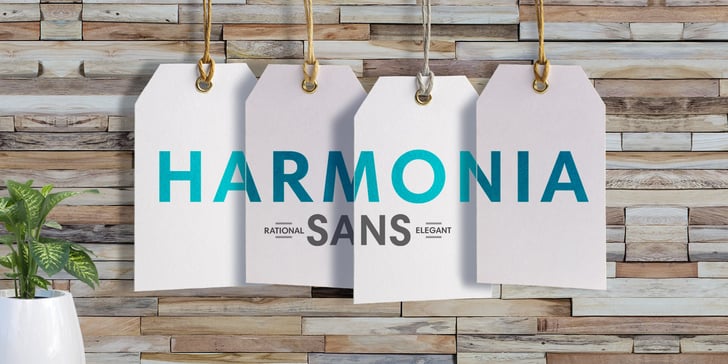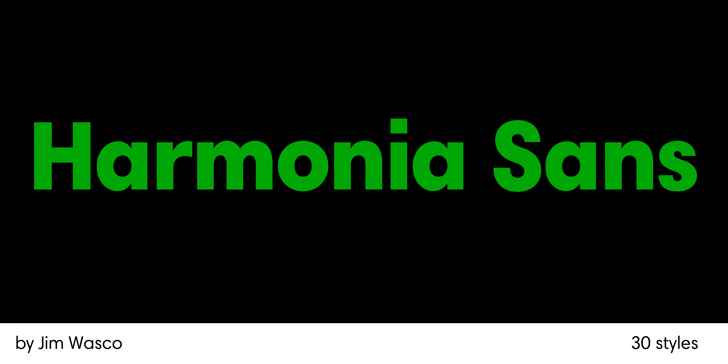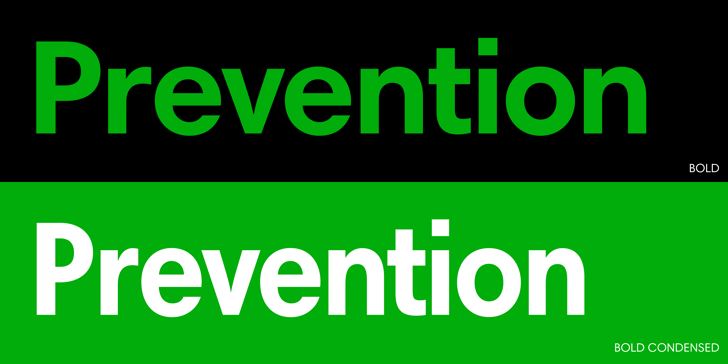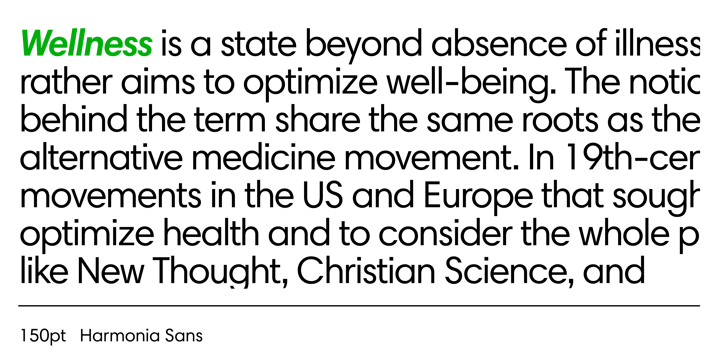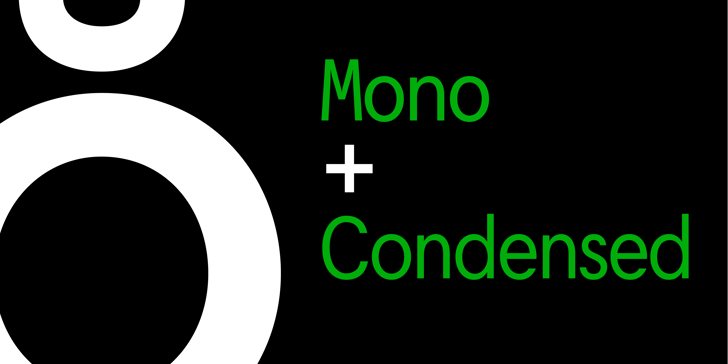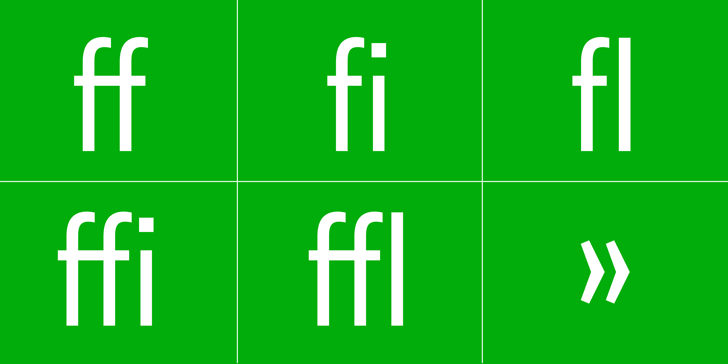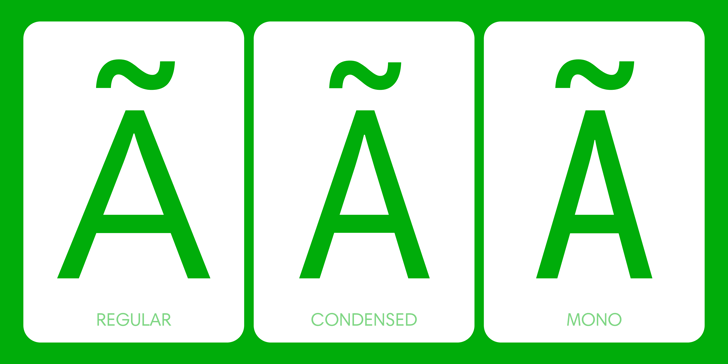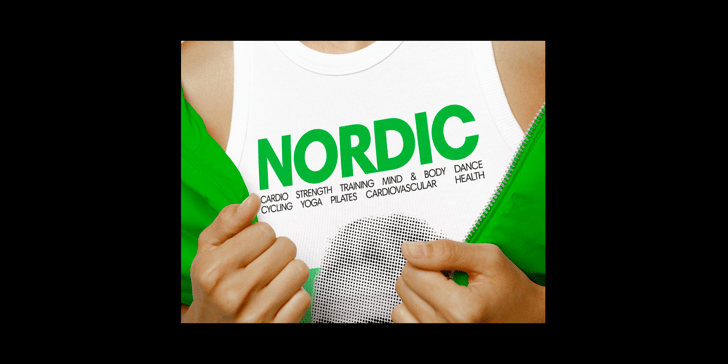
The Harmonia Sans™ Font Family was designed by Jim Wasco and published by Monotype. Harmonia Sans contains 30 styles and 3 family package options. The Harmonia Sans™ typeface is a fine blend of contemporary geometric sans serif lettershapes and classic calligraphic proportions. Jim Wasco, who was aided by George Ryan in the production of the typeface family, began the design of Harmonia Sans with a single goal in mind. "I wanted to create a simple and legible typeface by pulling the best aspects of classic geometric sans designs, such as Futura and ITC Avant Garde Gothic," Wasco explained. The result is a design suitable for virtually all typographic applications, from text on low-resolution displays to high-resolution print and even architectural signage.
Jim Wasco